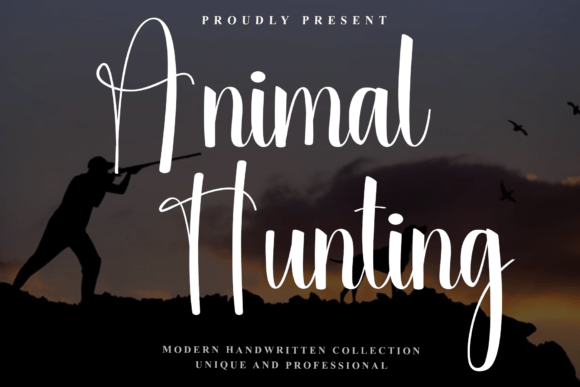
Unleash the Wild: Discover the Thrilling World of Animal Hunting Font
Are you a designer, craftsperson, or outdoor enthusiast looking for a typography that embodies the spirit of adventure and the great outdoors? Look no further than the Animal Hunting font, a stunning addition to our modern handwritten collection. This distinctive typeface is designed to evoke the thrill of the wild, with its tall, elegant letterforms, sharp terminals, and rhythmic vertical flow that mirrors the precision and focus of the wilderness.
The Inspiration Behind Animal Hunting Font
The Animal Hunting font is inspired by the raw beauty and majesty of the natural world. Its design is rooted in the idea of capturing the essence of the great outdoors, where adventure and exploration await around every corner. Whether you’re designing for outdoor apparel, adventure travel blogs, sports magazines, or artisanal rustic branding, this font provides a high-end, signature aesthetic that stands out from the crowd.
Key Features of Animal Hunting Font
So, what sets Animal Hunting font apart from other typefaces? Here are some of its key features:
- Tall, elegant letterforms: The Animal Hunting font boasts tall, slender letterforms that exude sophistication and elegance. Its vertical flow is reminiscent of the precision and focus required to navigate the wilderness.
- Sharp, expressive terminals: The font’s terminals are sharp and expressive, adding a touch of drama and flair to each letterform. This feature is perfect for designs that require a sense of adventure and excitement.
- Rhythmic vertical flow: The font’s vertical flow is rhythmic and harmonious, creating a sense of balance and cohesion. This feature makes it ideal for designs that require a sense of movement and energy.
- Sophisticated yet raw: The Animal Hunting font strikes a perfect balance between sophistication and raw energy. Its slender strokes ensure a refined look, while its rugged terminals maintain a sense of authenticity and grit.
Use Cases for Animal Hunting Font
The Animal Hunting font is versatile and can be used in a variety of design projects, including:
- Outdoor apparel branding: Use the Animal Hunting font to create bold, eye-catching logos and typography for outdoor apparel brands, such as hiking boot companies, camping gear manufacturers, or outdoor clothing labels.
- Adventure travel blogs: Add a touch of adventure and excitement to your travel blog with the Animal Hunting font. Its elegant letterforms and sharp terminals are perfect for creating engaging headlines and titles.
- Sports magazines: The Animal Hunting font is ideal for sports magazines that focus on outdoor activities, such as hunting, fishing, or hiking. Its sophisticated yet raw aesthetic will add a touch of authenticity to your publication.
- Artisanal rustic branding: Use the Animal Hunting font to create unique, handcrafted branding for artisanal products, such as handmade crafts, woodwork, or outdoor gear.
Why Choose Animal Hunting Font?
So, why choose the Animal Hunting font for your design project? Here are just a few reasons:
- Unique aesthetic: The Animal Hunting font offers a distinctive, high-end aesthetic that sets it apart from other typefaces.
- Versatility: This font is versatile and can be used in a variety of design projects, from outdoor apparel branding to sports magazines.
- Elegant yet raw: The Animal Hunting font strikes a perfect balance between elegance and raw energy, making it perfect for designs that require a sense of adventure and sophistication.
In conclusion, the Animal Hunting font is a thrilling addition to our modern handwritten collection. Its tall, elegant letterforms, sharp terminals, and rhythmic vertical flow make it perfect for designs that require a sense of adventure, sophistication, and raw energy. Whether you’re a designer, craftsperson, or outdoor enthusiast, this font is sure to inspire your next creative project. So, unleash the wild and capture the spirit of adventure with the Animal Hunting font.